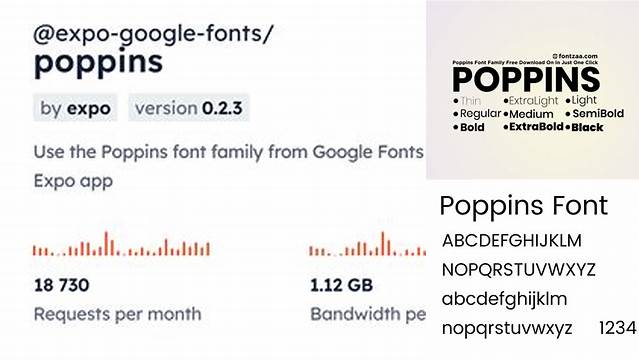
Why Use Poppins Font?
Before we jump into the how-to, let's quickly chat about why Poppins is such a popular choice. Poppins is a geometric sans-serif typeface that's super versatile. It’s clean, modern, and works great for both headings and body text. Plus, it's a Google Font, which means it's free to use and easy to implement in your projects. So, if you're looking for a font that's both aesthetically pleasing and functional, Poppins is a solid bet.
Poppins comes in a variety of weights, from thin to extra-bold. To use different weights, you'll need to import them and load them using useFonts